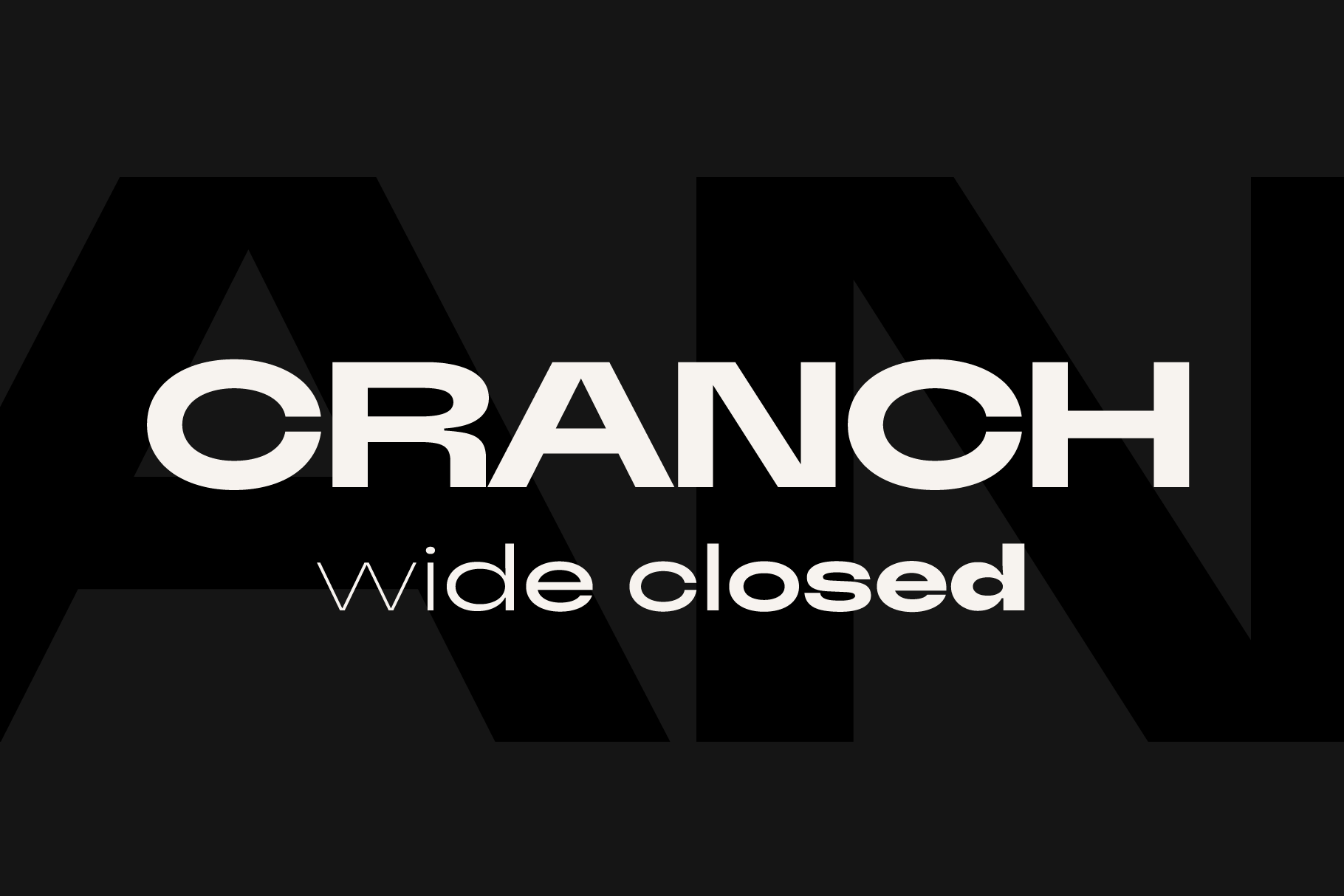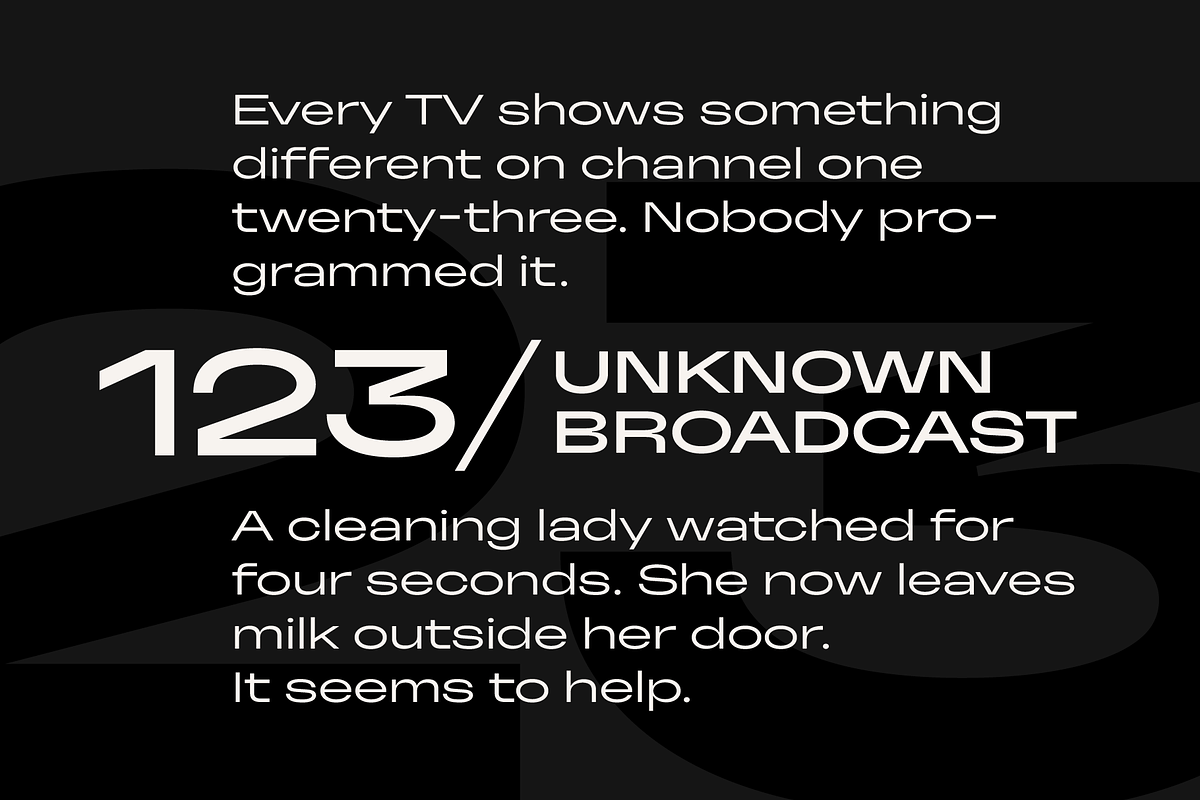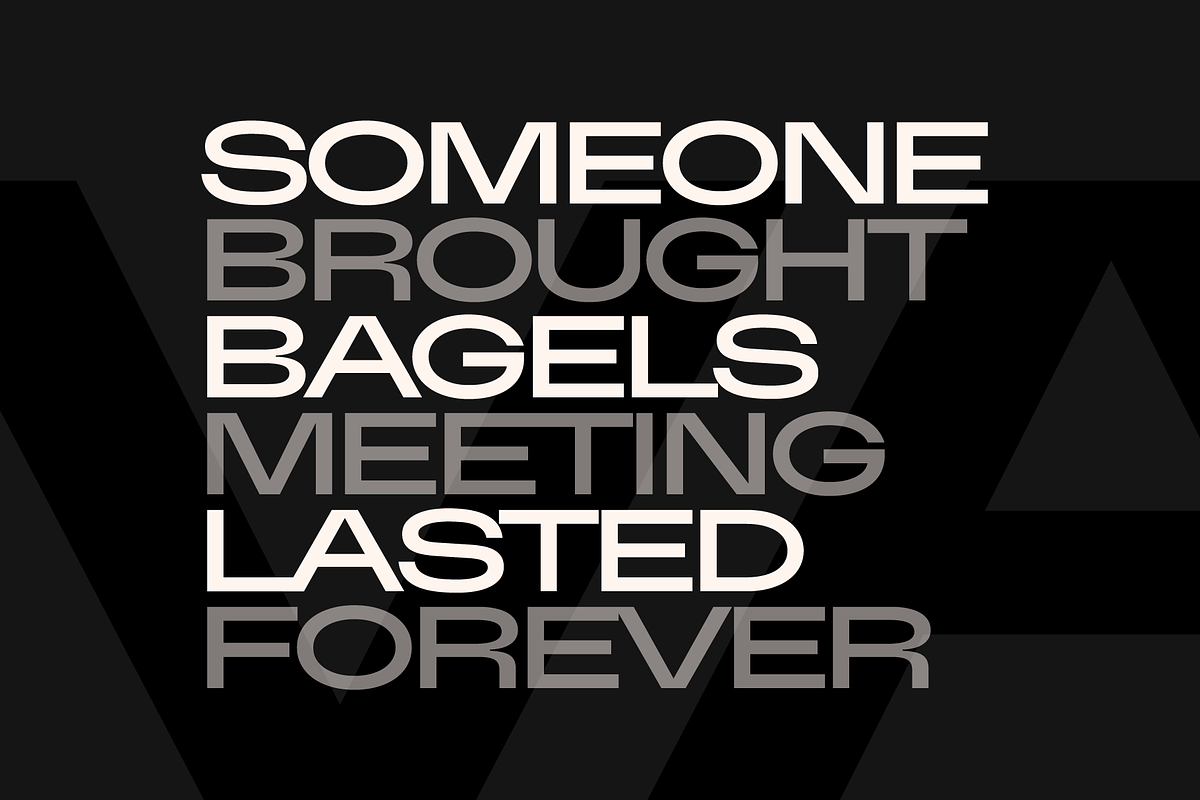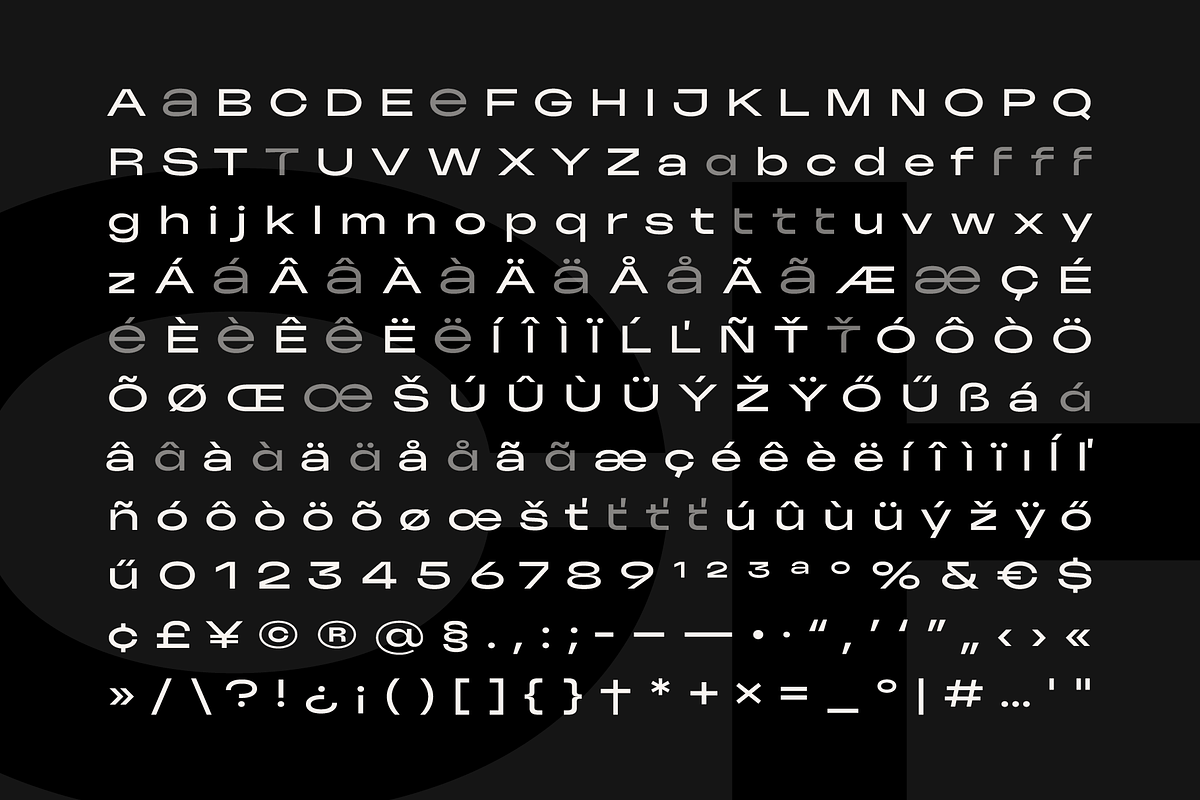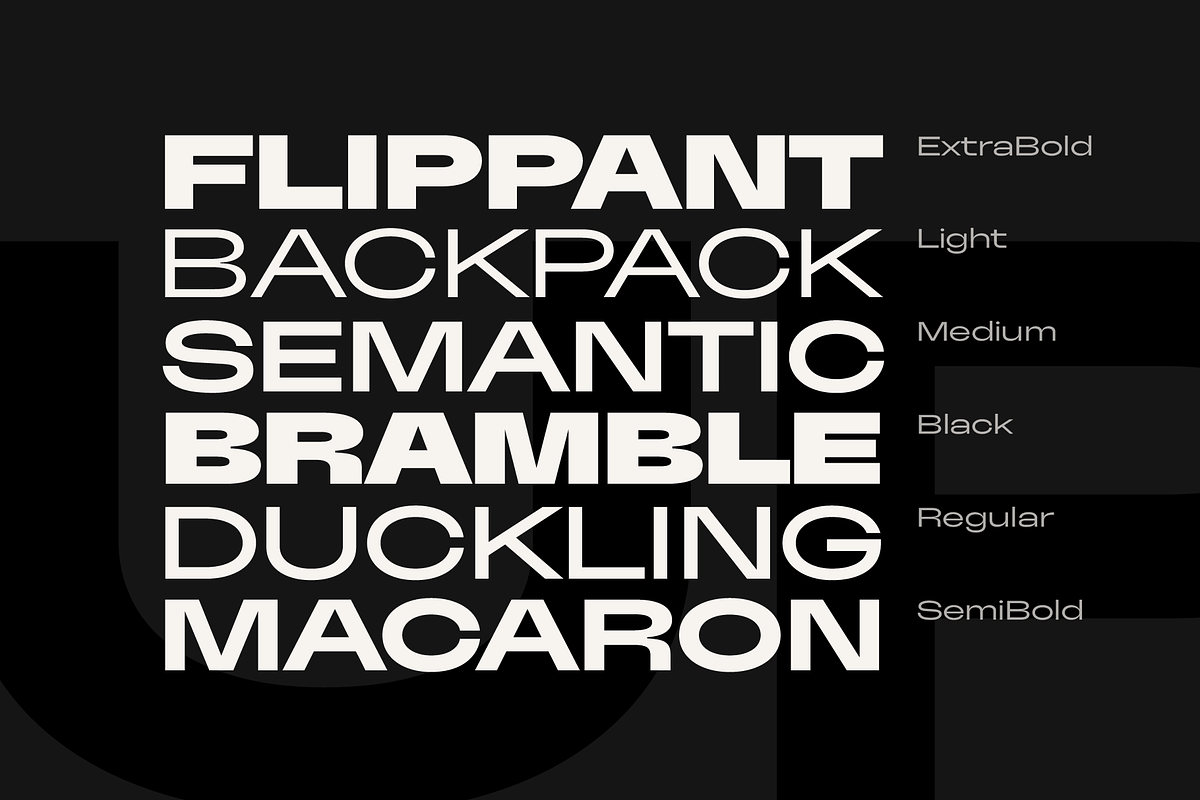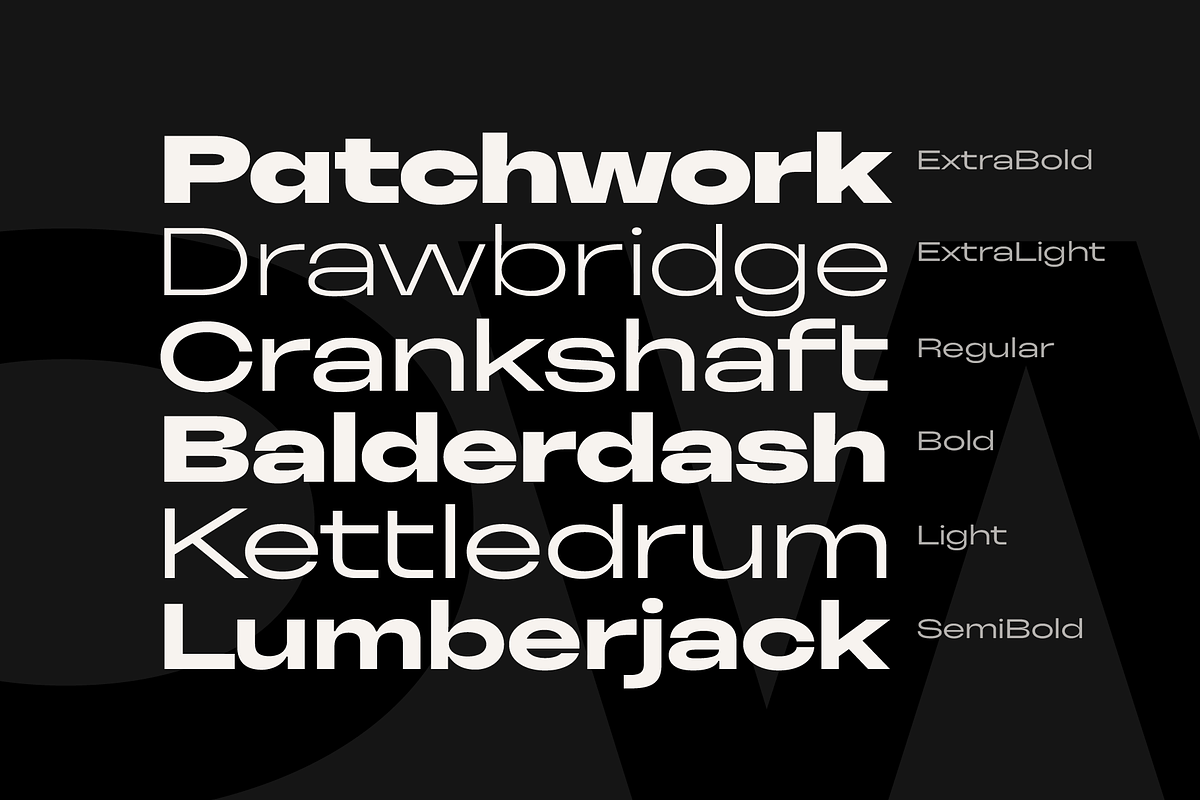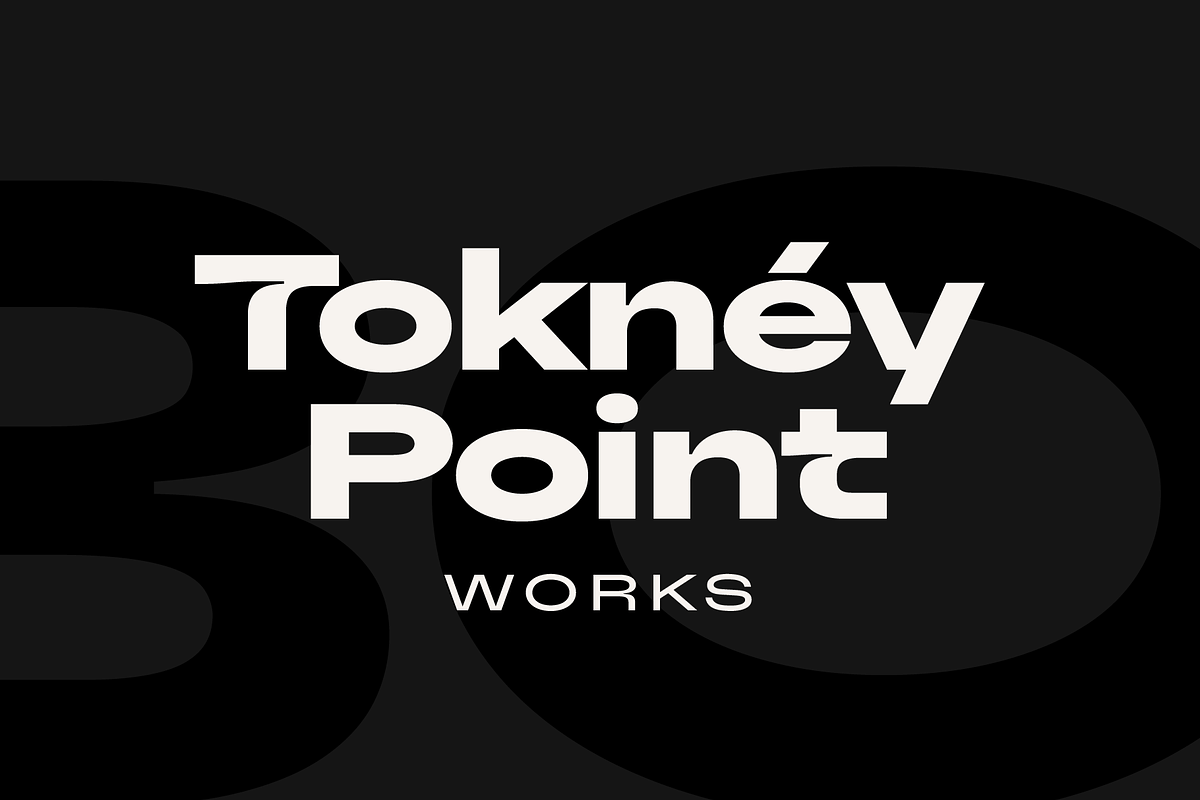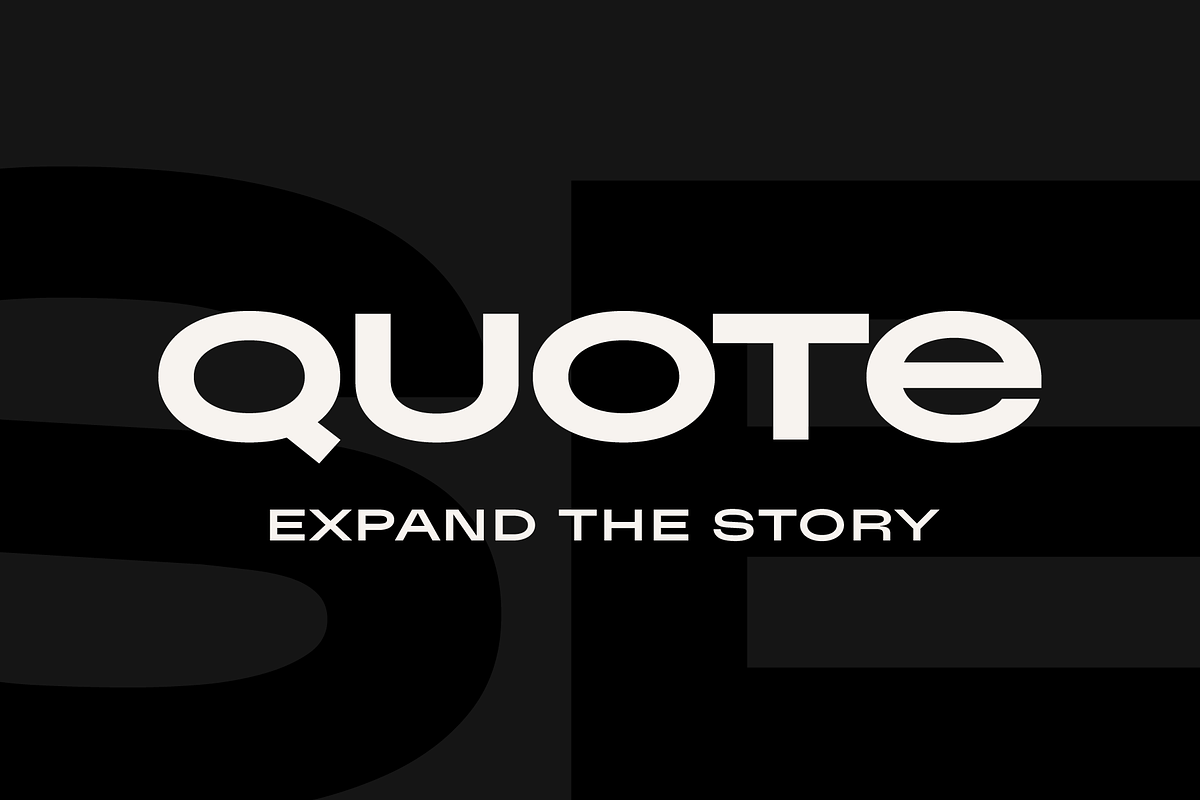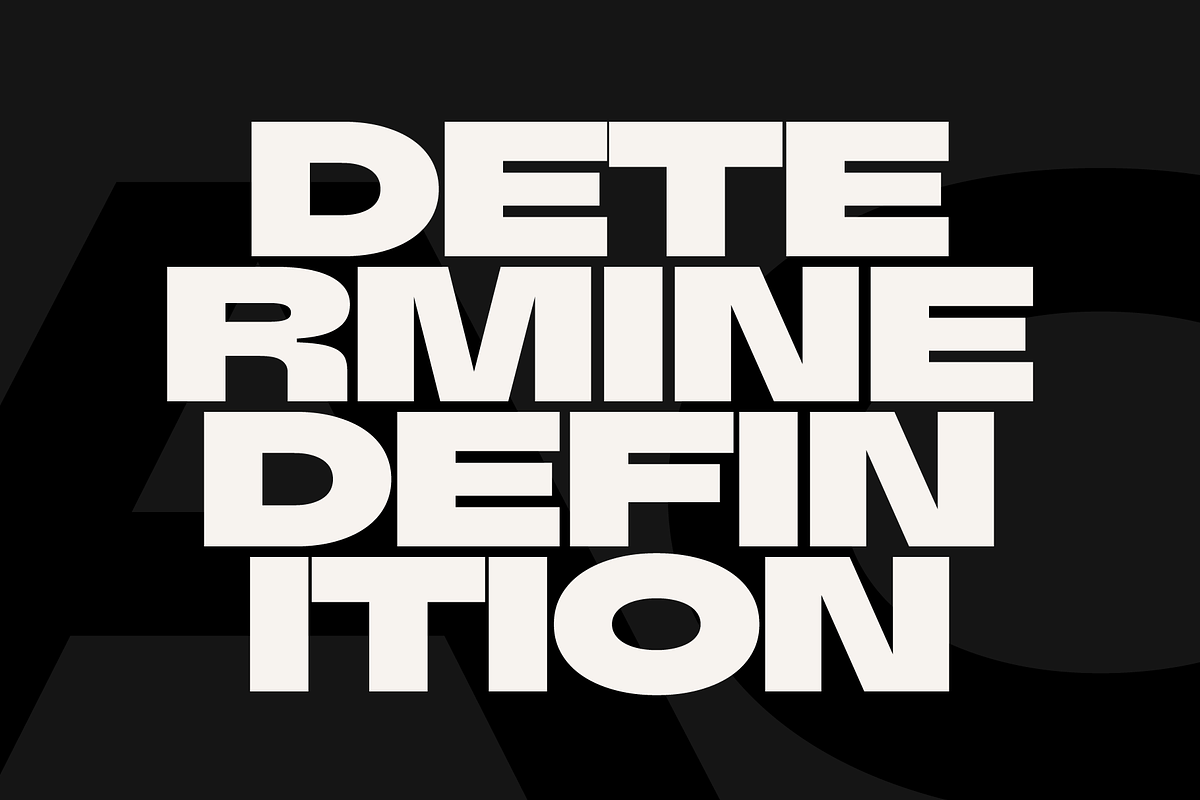
Cranch Font Family
Cranch is a modern geometric grotesk typeface family in an extended width, featuring 9 weights from Thin to Black, along with a fully functional variable font. Each style includes a set of stylistic alternates designed to highlight and personalize individual letters within your text.
Each font contains:
- lowercase and uppercase Latin letters
- alternate characters
- basic multilingual letters
- numbers
- extra characters
- punctuation